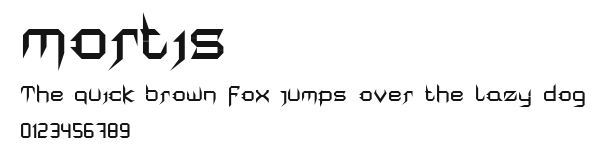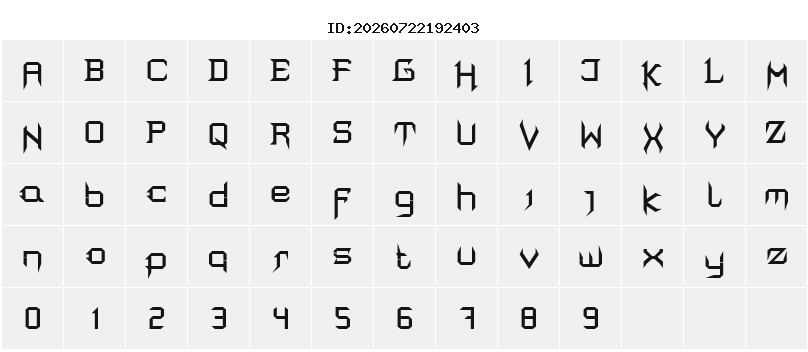
• Font Name: mortis
• Designer: atrax
About mortis.ttf
mortis.ttf is a modern, elegant sans-serif font designed for ultimate readability and visual harmony. Perfect for branding, headlines, web design, and print materials.